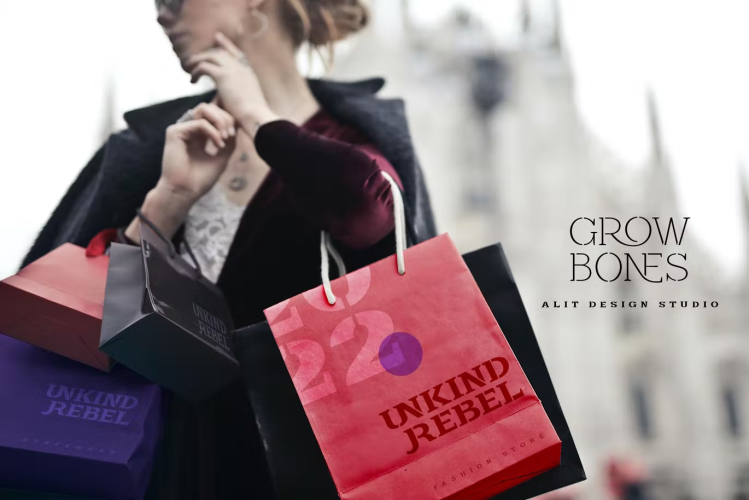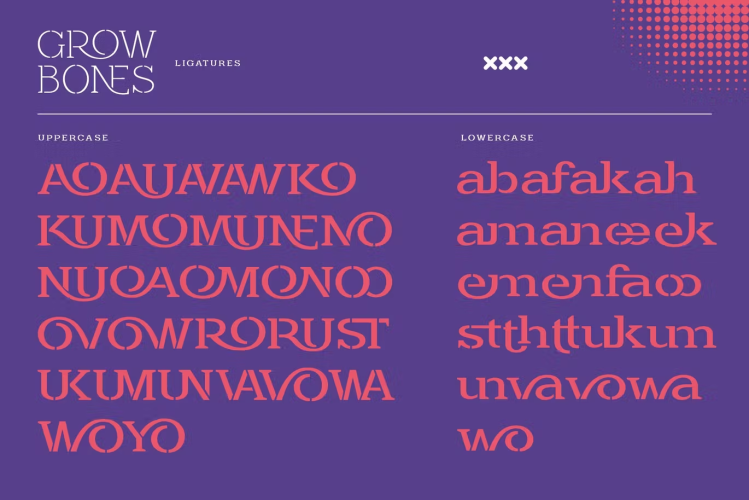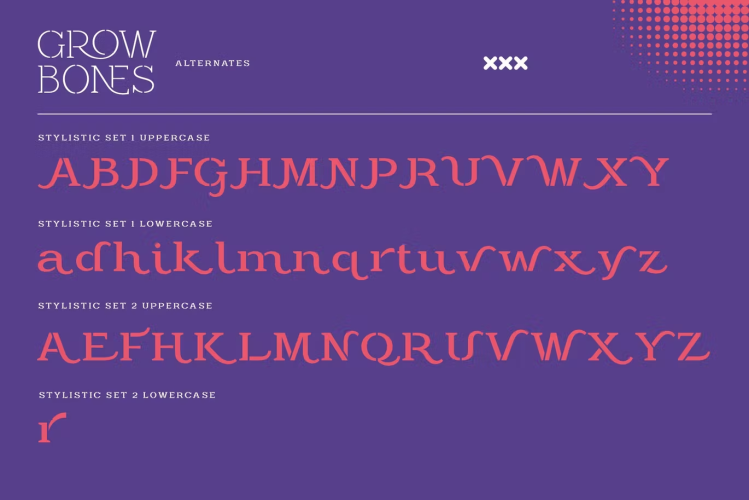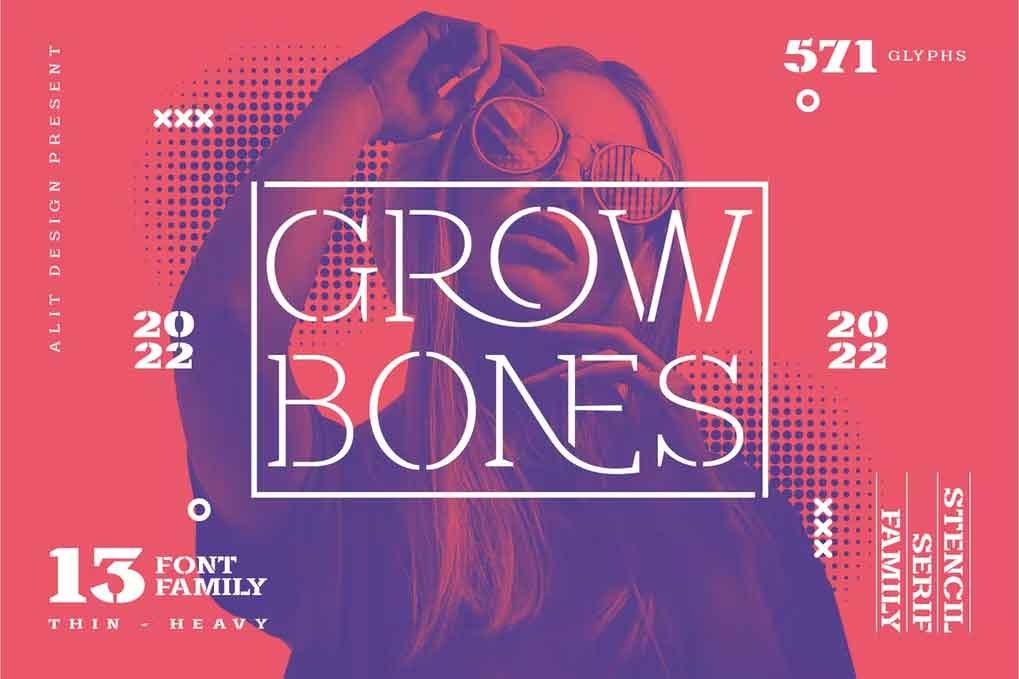
Grow Bones Font
Introducing Grow Bones Typeface
The Grow Bones font is designed with a serif font concept that has a sporty display stencil style. Irregular dynamic shapes but impressively regular and unique make the font “Grow Bones” different and steal attention.
Serif typefaces such as “Grow Bones” are very easy to apply to any design, especially those with an sporty, modern and strong, besides that this font is very easy to use both in design and non-design programs because everything changes and glyphs are supported by Unicode (PUA).
The “Grow Bones”contains 571 glyphs with many unique and interesting alternative options. Plus, there’s a cool serif font family for header and description text from thin to heavy to thin. In the poster preview all the letters are in the Grow Bones typeface.
Where Grow Bones Font works best
Grow Bones Font gives long-form text a classic, trustworthy rhythm — ideal for magazine spreads, annual reports and book interiors.
Pair Grow Bones Font with generous letter-spacing for wordmarks in fashion, hospitality, wine and jewellery branding.
Use Grow Bones Font for slide titles in Keynote, PowerPoint or Google Slides to add authority without looking dated.
What is Grow Bones Font good for?
Grow Bones Font is a Serif Fonts typeface tagged Display, Modern, Poster, Serif. It works well for headlines, logos, posters, social media graphics and branding projects that need a distinctive serif fonts look.